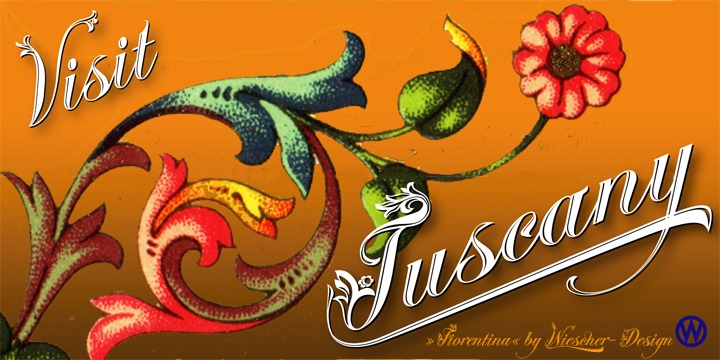
• Fiorentina
Fiorentina is a ecstatic, abundant, embellished script in the Renaissance tradition. It could have been made for the Medicis or Sforzas. But I designed it completely new after being inspired by colorful Florentine wrapping papers. I gave it many different swashes and understrokes, alternate upper- and lowercase characters, 659 characters in all! The font has all accents for the European languages, Baltic, Roumanian and Turkish.